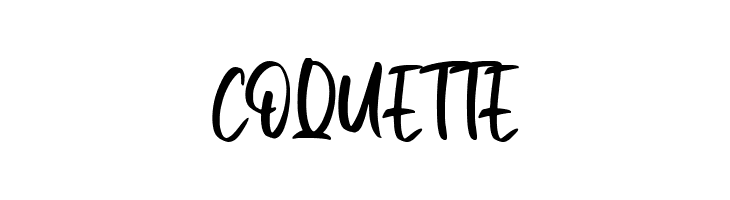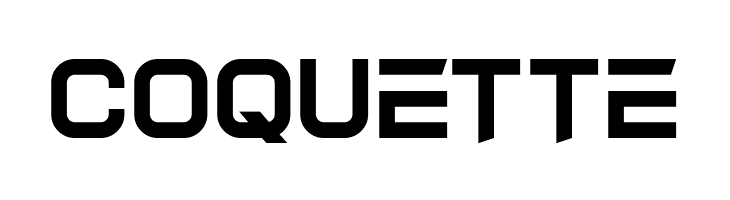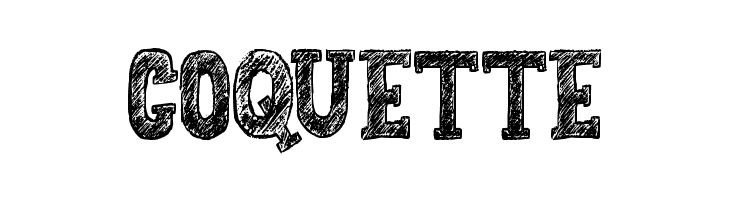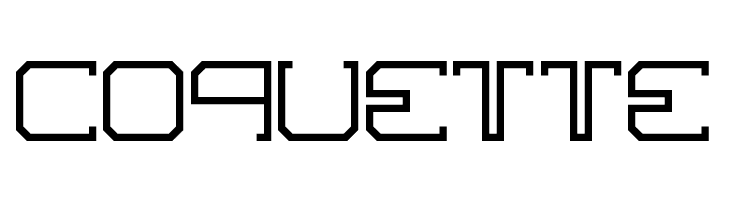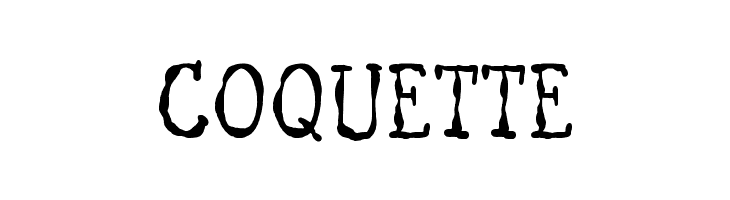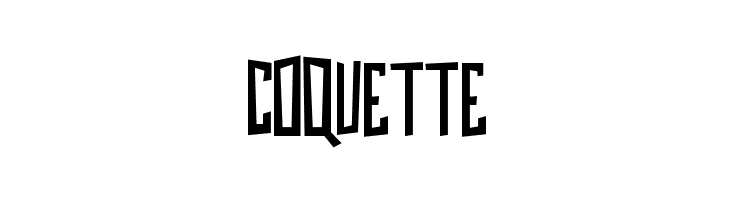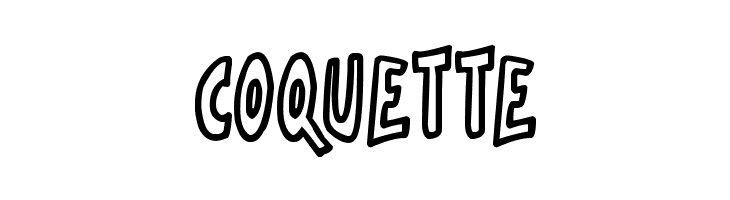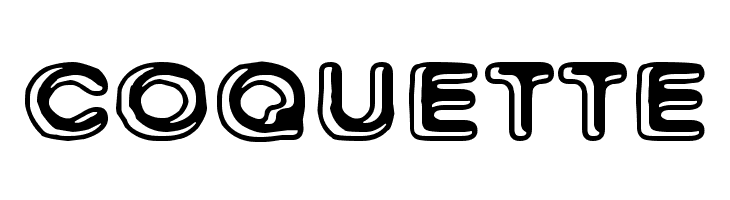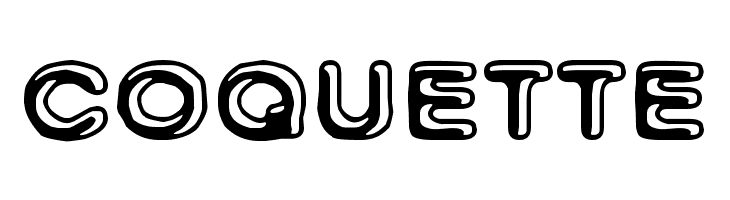
( Fonts by Masa Aska Sanurumi )
A playful, sketch-like font with a ghostly and whimsical appearance.
A hand-drawn, sketch-style font with textured, artistic characters.
A playful, bold outline font with a whimsical and energetic style.
A bold, playful font with a zebra-like pattern and strong contrast.
( Fonts by Darrell Flood )
A playful, bold, hand-drawn font with a cartoonish style.
A bold, futuristic font with angular, geometric shapes and a modern, edgy style.
A bold, energetic handwritten font with flowing, playful letterforms.
A bold, angular font with a modern, geometric style.